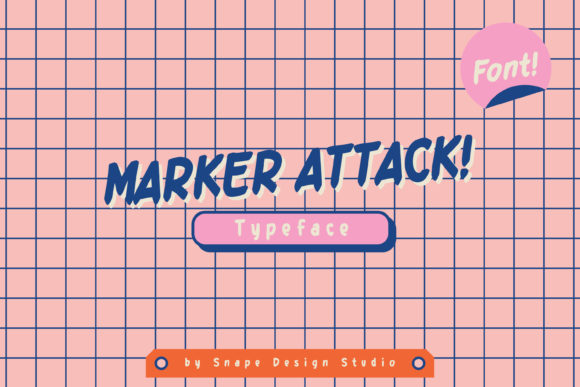
Welcome to the realm of Marker Attack, a splendid handwritten font that echoes the spirit of modernism. Its effortless strokes and bold presence are destined to elevate your designs, igniting a fire of inspiration within you.
Crafted with meticulous care by the visionary minds at snapedsgn, Marker Attack is the embodiment of versatility. It dances across a myriad of design landscapes, effortlessly adapting to your creative vision. Whether you're crafting a sophisticated resume, designing captivating social media posts, or adding a touch of elegance to your branding, Marker Attack stands as your steadfast companion.
Open the door to a world of endless possibilities with Marker Attack. Its unyielding charm will caress your designs, turning them into mesmerizing works of art. Let Marker Attack be your trusted ally, guiding you towards design triumphs and leaving a lasting impression on your audience.